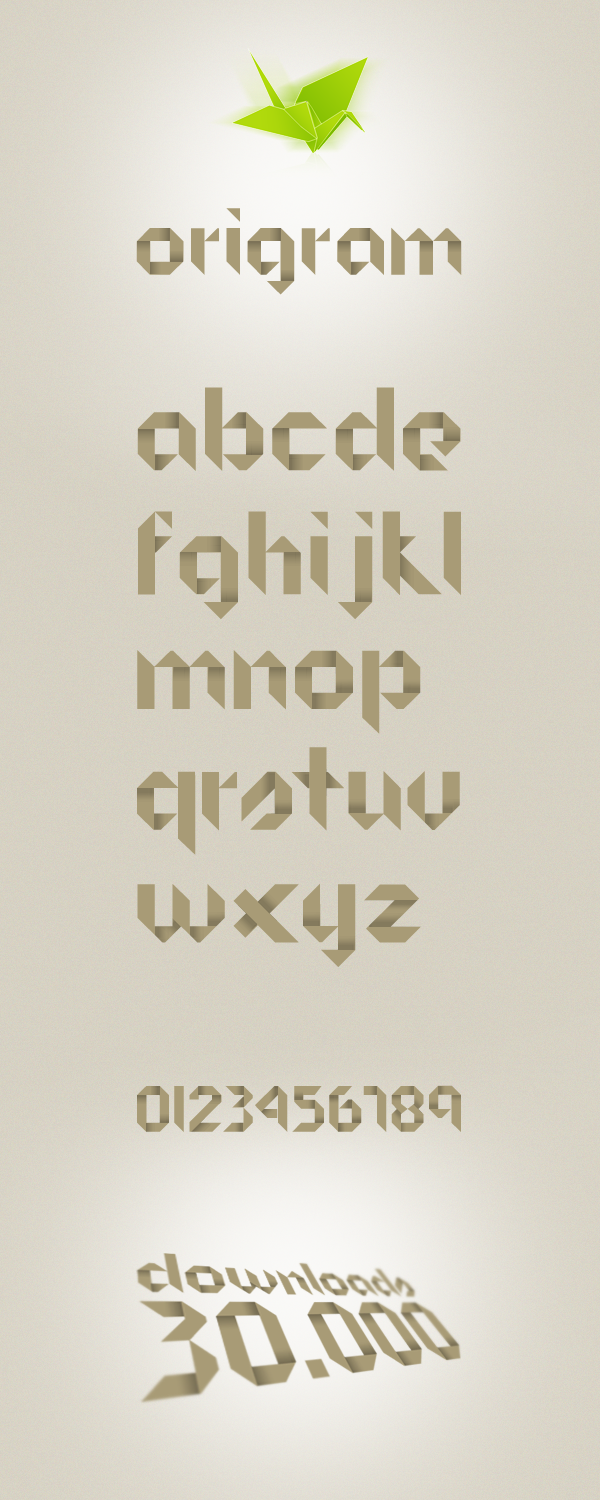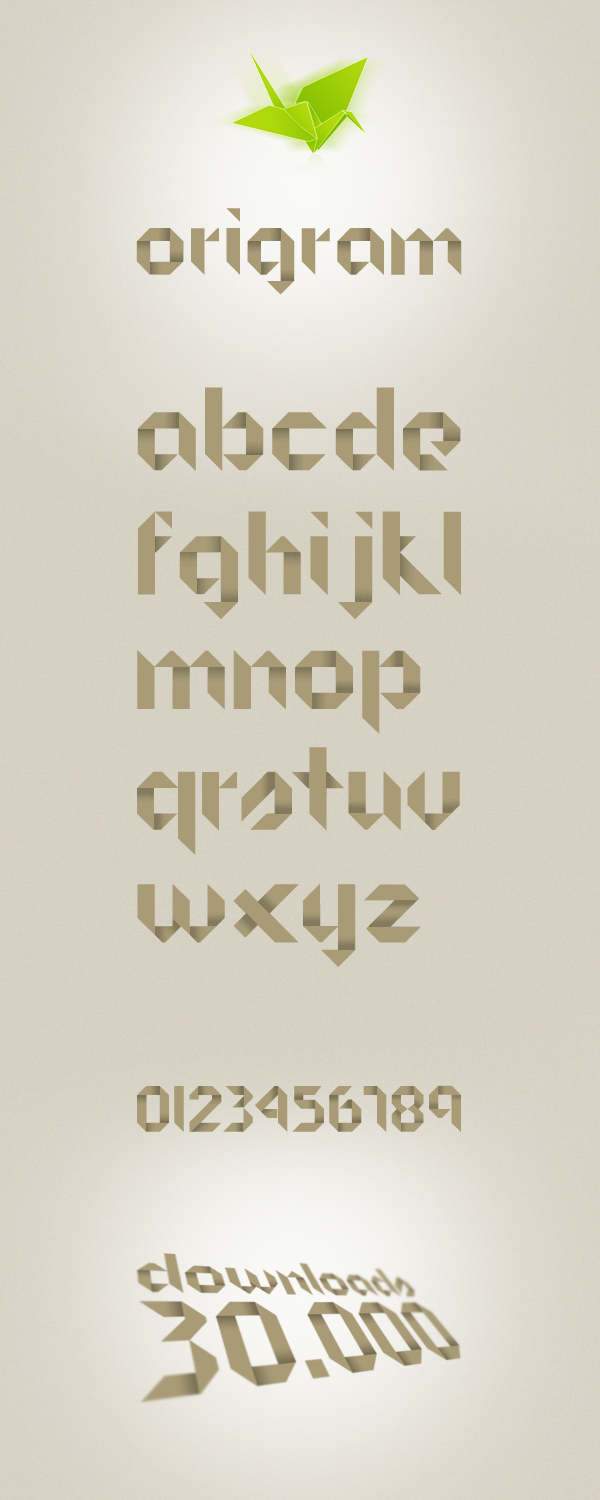
Origram by ^NunoDias The suggester wrote: I find this to be not only a unique font but immensely creative.Who would've thought of making a font inspired from origami ?
Origram was the first font I designed. It was born from the curiosity that I have for typefaces. Inspired by Origami and Tangram, the original shape is an octagon. Geometric, regular, is a display font! It's not appropriate to be used in text bodies, but rather in large scales, like posters, outdoors, and logos …